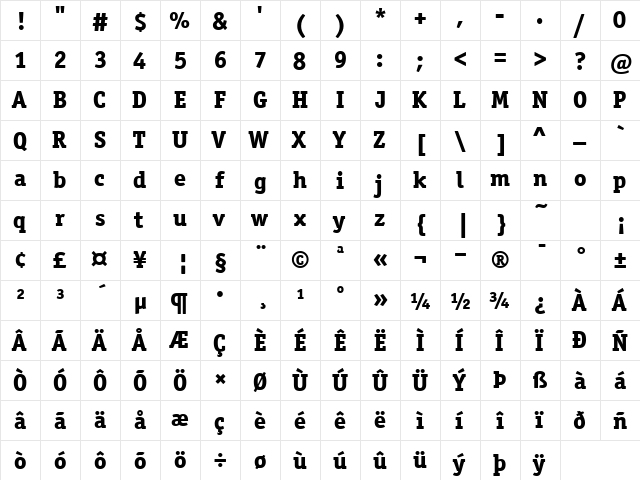
OfficinaSerITCTT ExtraBold
| Foundry | International Typeface Corporation |
| Designer | Erik Spiekermann/Ole Schaefer |
Design Context for OfficinaSerITCTT Typeface
OfficinaSerITCTT is a composed and adaptable typeface that performs quietly and consistently across a wide range of design contexts. The heavy weight commands attention and anchors typographic hierarchies.